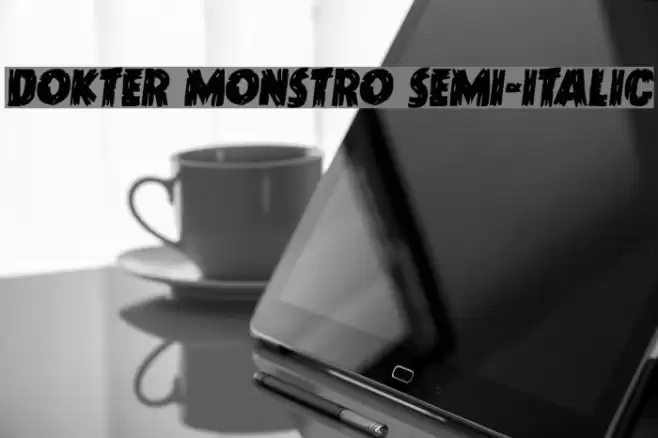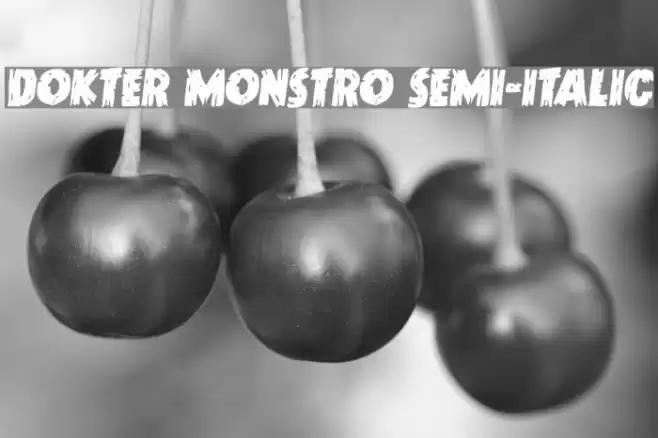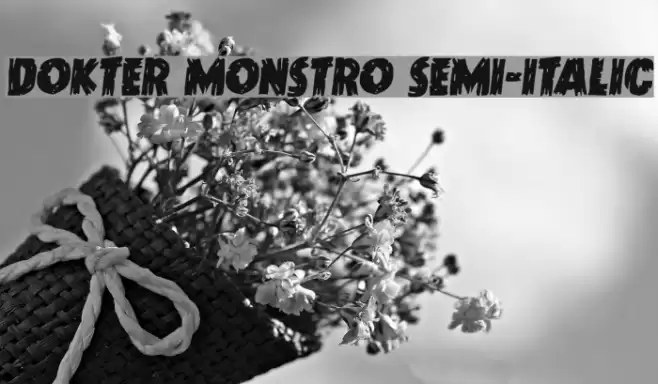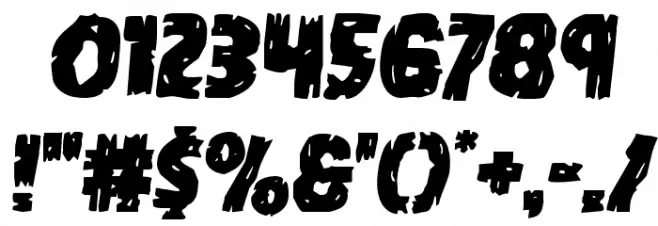
Dokter Monstro Semi-Italic Font
Dokter Monstro Semi-Italic Description
This font features a bold and dynamic style with a distressed, grunge-like appearance. The characters are heavily stylized with rough, jagged edges, giving them a chaotic and energetic feel. The uppercase and lowercase letters maintain a consistent design, with the uppercase being slightly larger and more pronounced. Numbers and special characters follow the same rugged aesthetic, ensuring a cohesive look across all text. The font's unique style makes it stand out, perfect for projects that require a dramatic and impactful visual presence.
A bold, distressed font with a chaotic, grunge-like style from Uncategorized fonts.
- Proposed Projects: Ideal for posters, album covers, video game graphics, and any project needing a bold, edgy look.
- Contrast: High